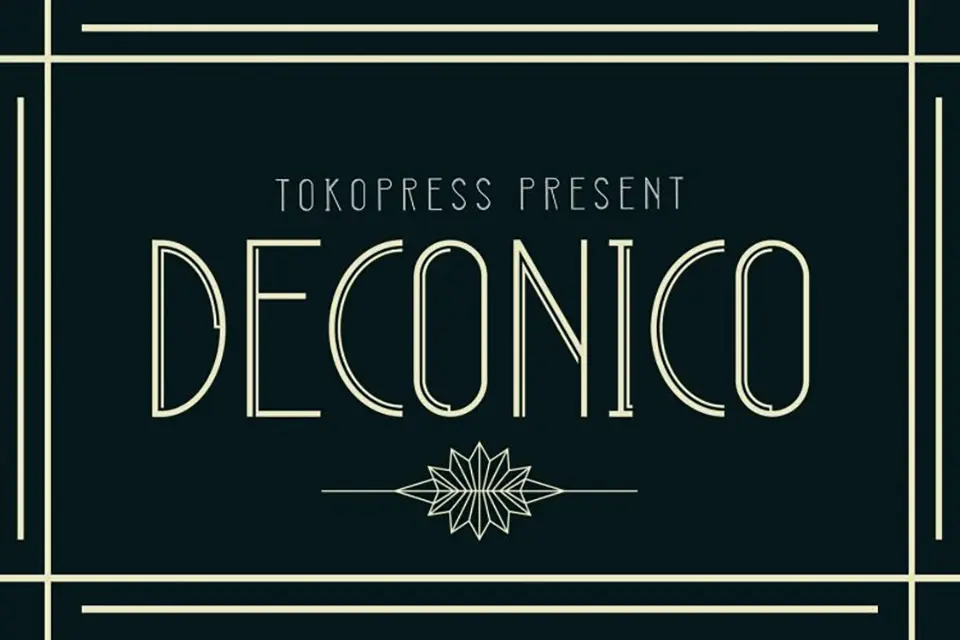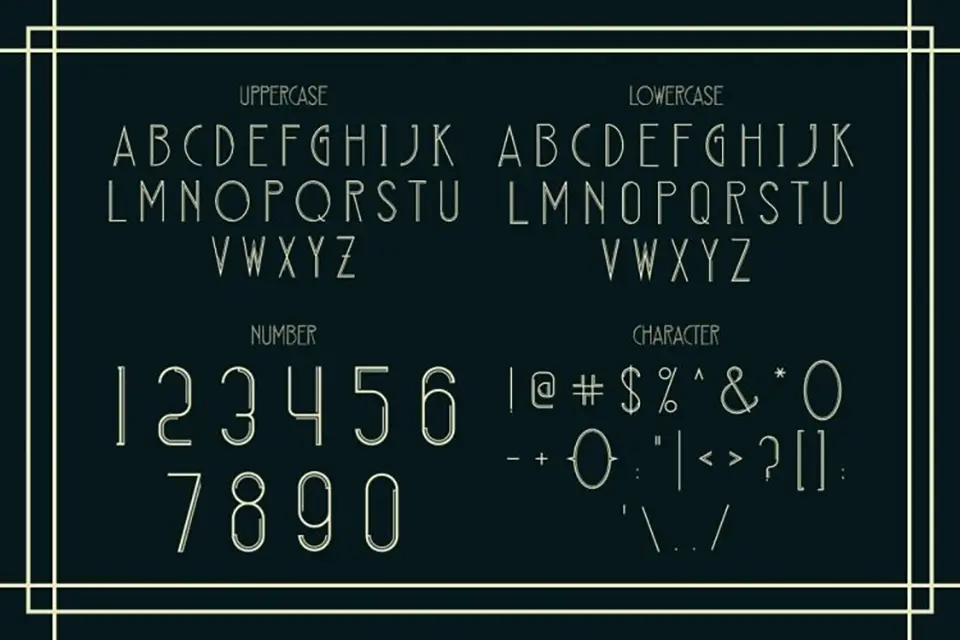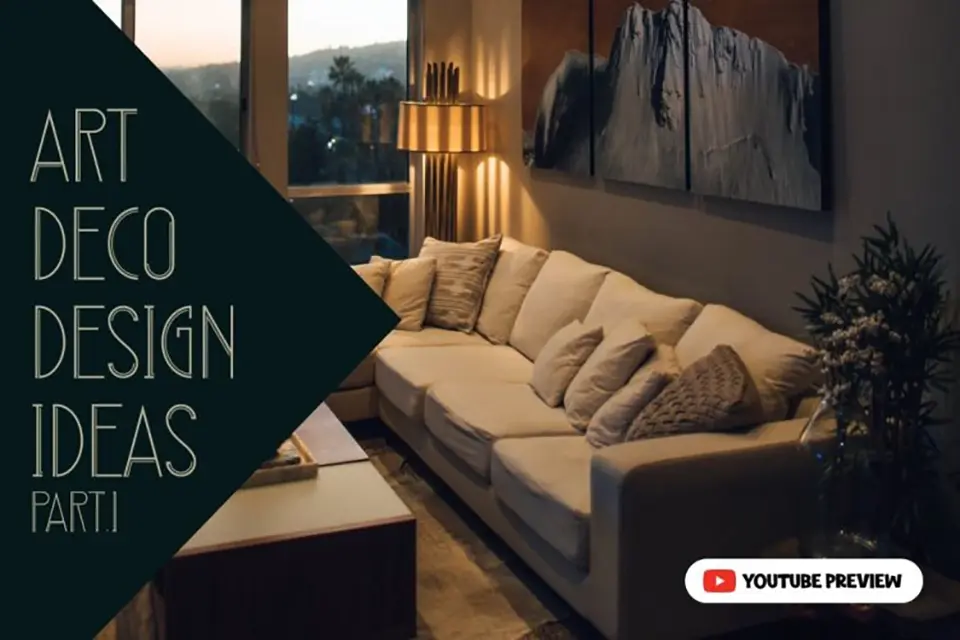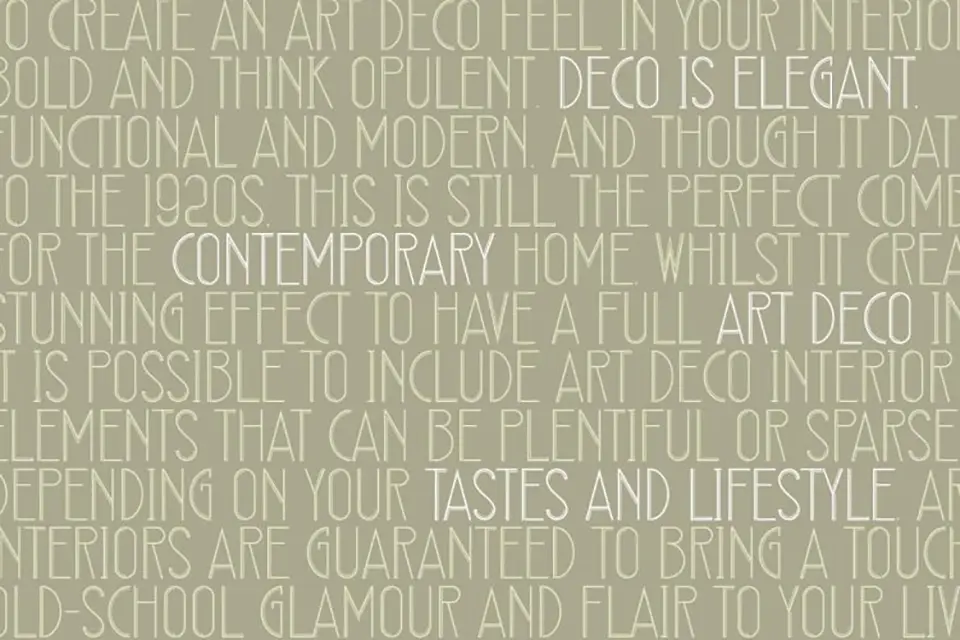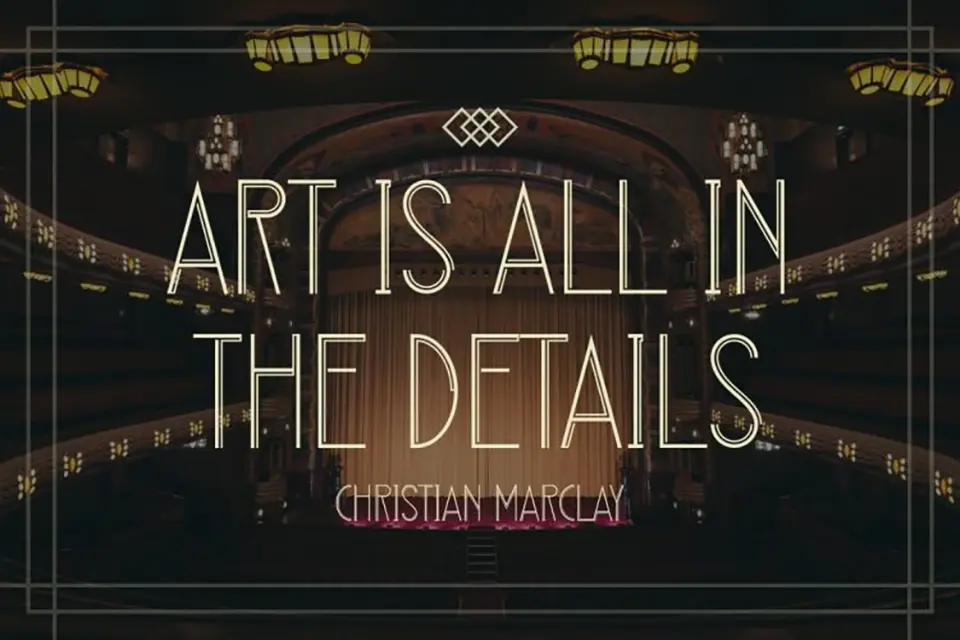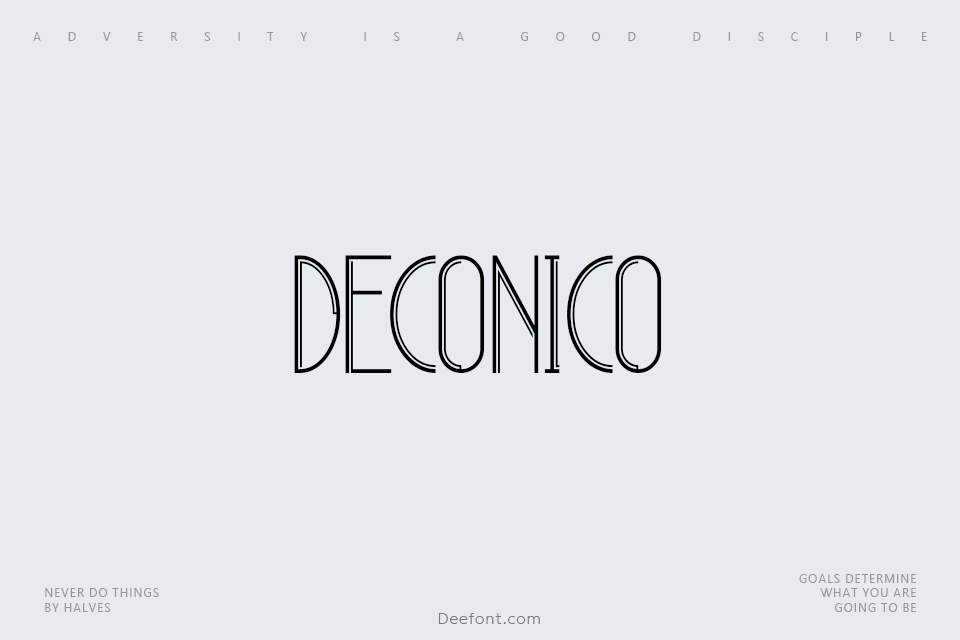
Deconico Font
Deconico is a sophisticated Art Deco-inspired display font that captures the elegant minimalism of 1920s-1930s design. Featuring clean geometric lines and refined curves, this typeface exudes understated luxury perfect for logos, headlines, and branding projects requiring refined simplicity. Its balanced proportions and structured letterforms ensure effortless readability while maintaining timeless sophistication, making it ideal for luxury fashion, upscale hospitality, and retro-themed designs.